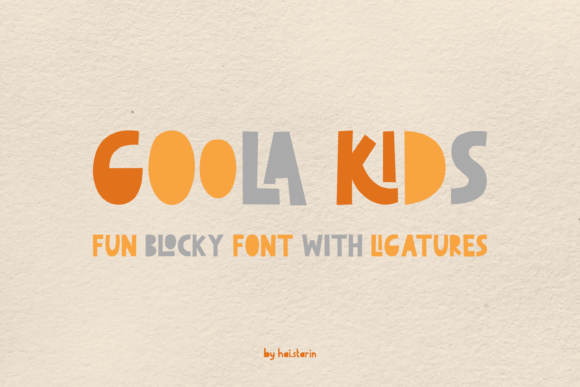
Goola Kids Font, created by the talented hai.starin, is a delightful sans serif font that is specifically designed for kids. This font brings a sense of joy, playfulness, and imagination to any project it graces. With its fun blocky style and unique ligatures, Goola Kids Font is a true standout in the world of typography.
What sets Goola Kids Font apart from the rest is its versatility and ability to bring any project to life. Let your imagination run wild as you explore the limitless possibilities this font offers. From children's books to party invitations, this font will transform ordinary designs into extraordinary works of art.
But it's not just about aesthetics. Goola Kids Font also boasts exceptional readability, ensuring that your message is conveyed effortlessly. No more struggling to capture attention or engage your audience. With Goola Kids Font, every word will jump off the page, leaving a lasting impression on all who lay their eyes upon it.
Downloading Goola Kids Font is like unlocking a treasure trove of creativity. With its wide range of glyphs and ligatures, you have the power to create truly unique and captivating designs that will leave a lasting impact. Get ready to unleash your inner artist and inspire others with your imaginative creations.